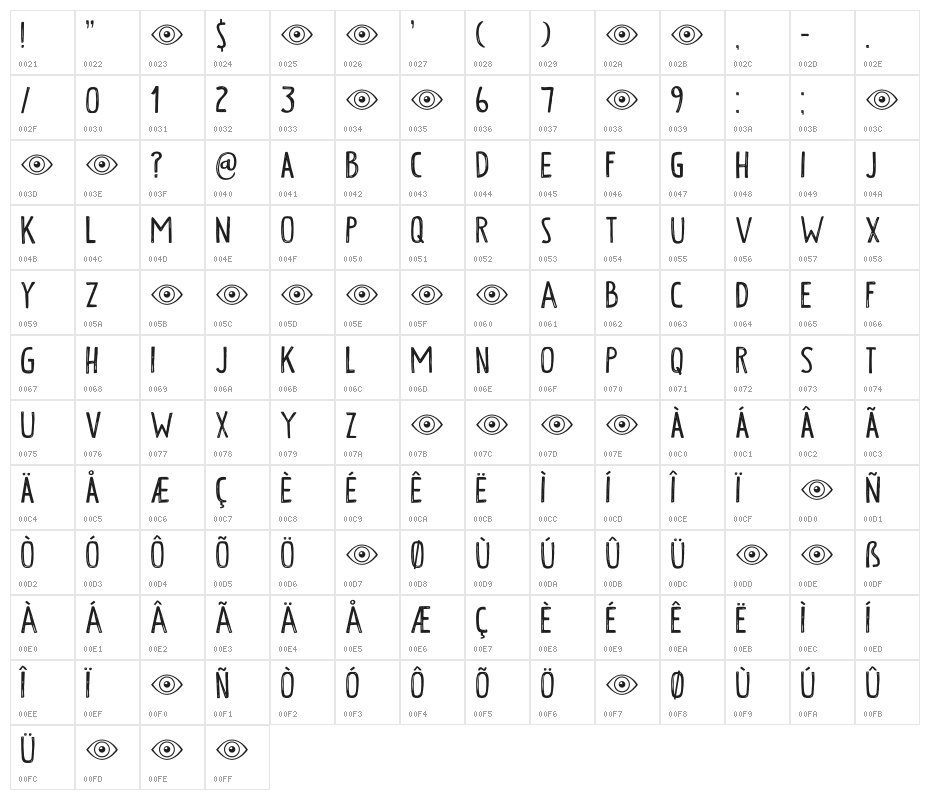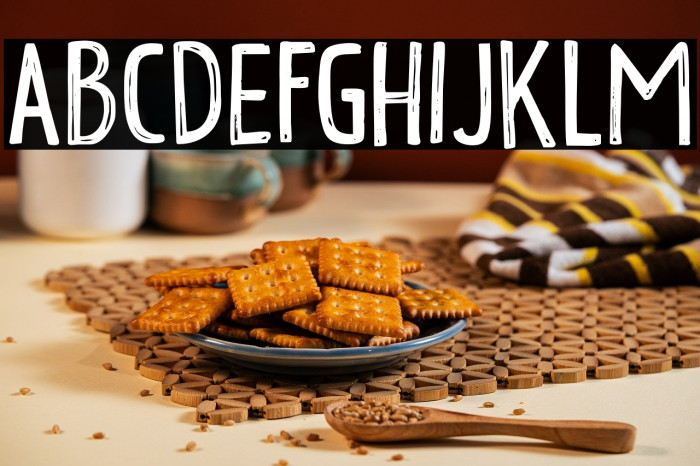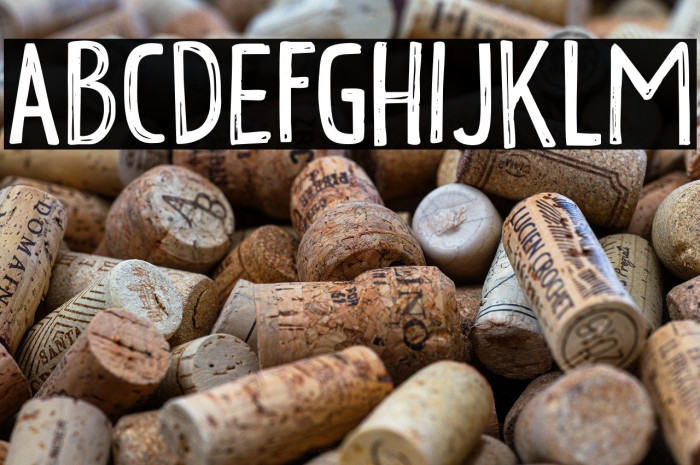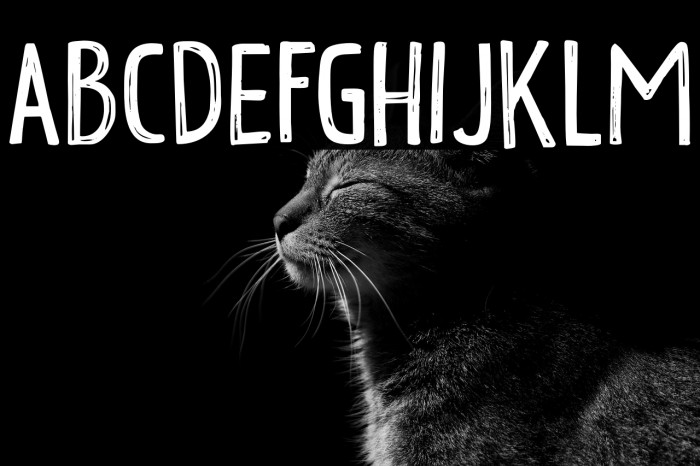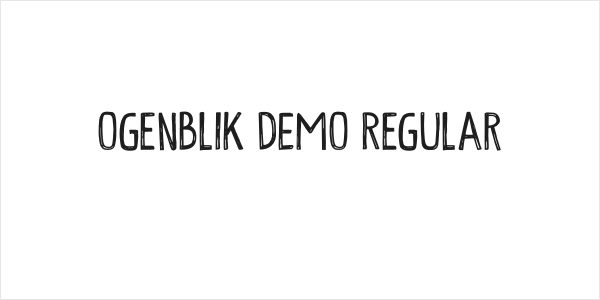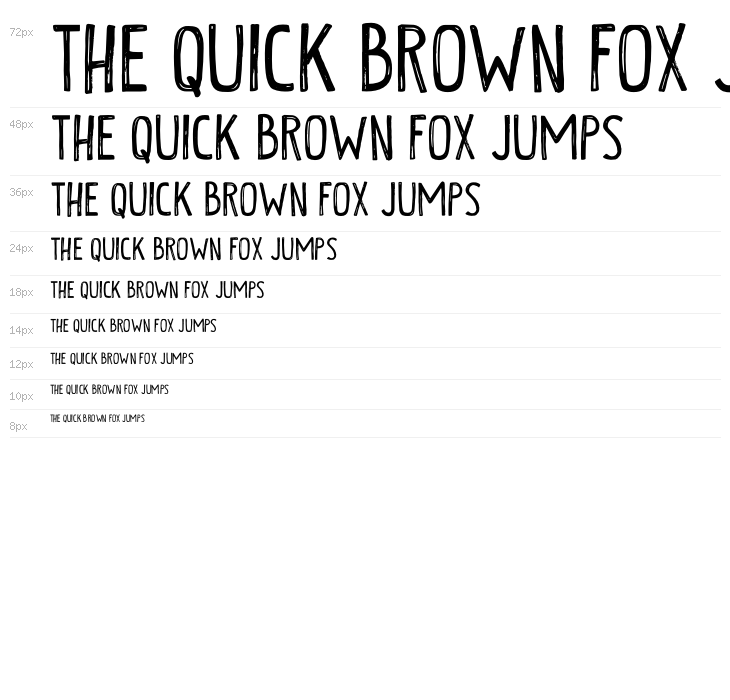
Ogenblik DEMO Regular Font
Ogenblik DEMO Regular Description
This font features a hand-drawn, playful style with irregular strokes and a slightly rough texture, giving it a casual and artistic feel. The uppercase and lowercase letters maintain a consistent height, while the numbers and special characters exhibit the same quirky design. The font's unique character is emphasized by its uneven lines and whimsical appearance, making it ideal for creative projects. Its distinctiveness is further highlighted by the inclusion of eye symbols, adding an element of surprise and creativity. The overall design is both engaging and versatile, suitable for a variety of artistic applications.
| Use Case | Logos, Posters, Creative projects |
| Proposed Projects | Ideal for children's books, creative posters, art projects, and unique branding. |